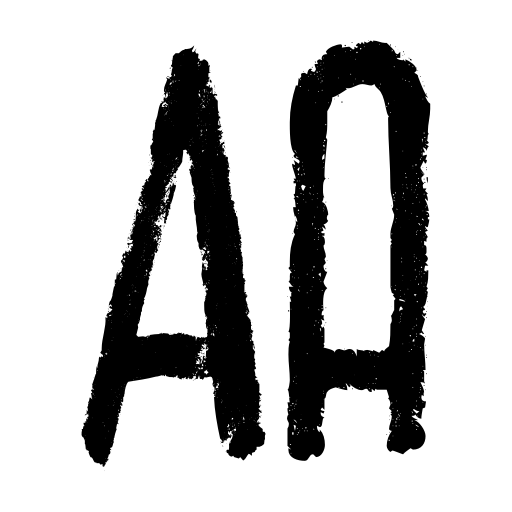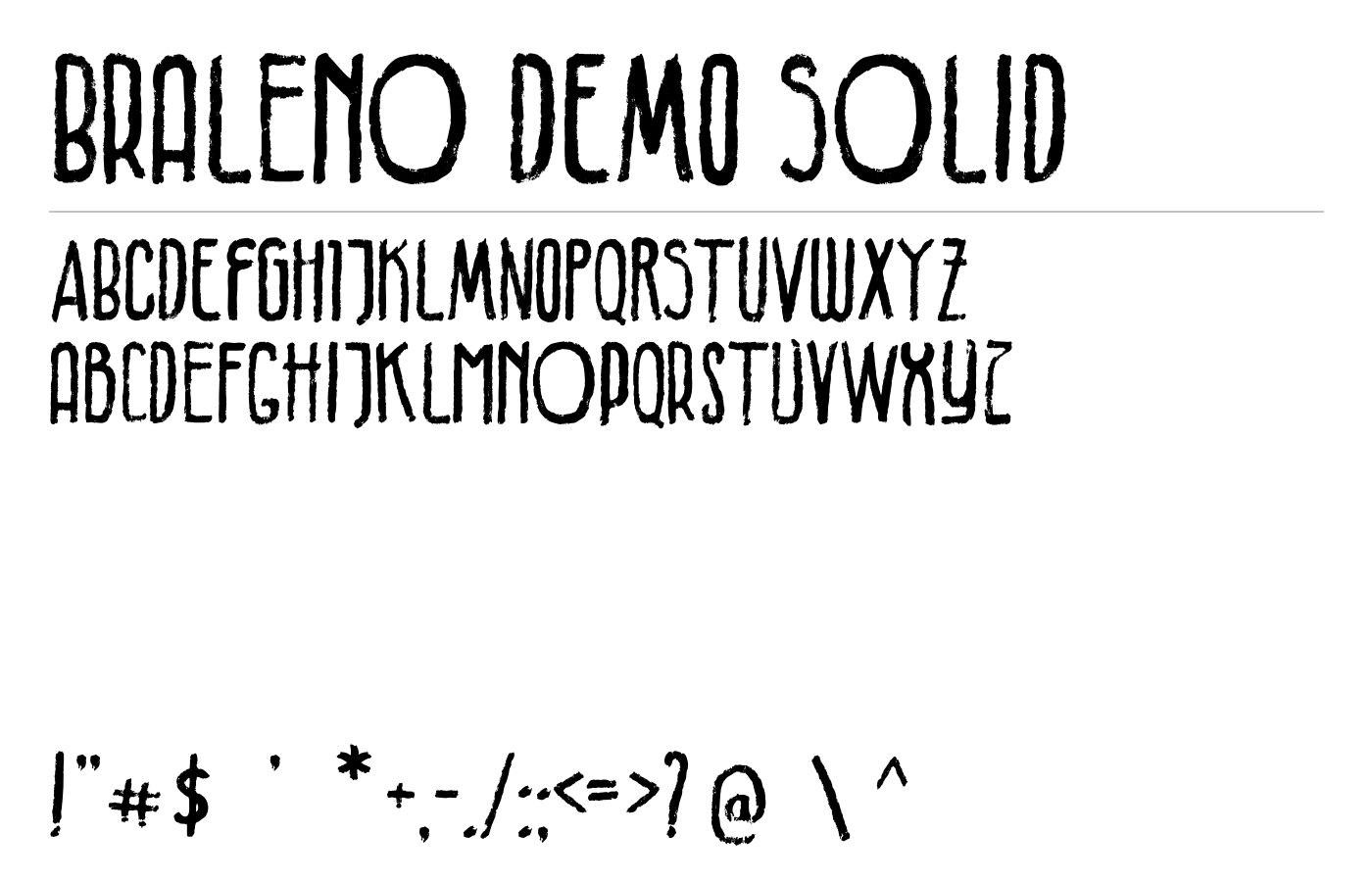
Braleno DEMO is a narrow, tall, and textured sans serif font with a hand-drawn, slightly rough appearance that gives it a unique, organic feel. Its irregular stroke edges and condensed letterforms make it ideal for creative and artistic projects, offering a casual yet distinctive style perfect for posters, logos, or headlines that want to stand out with personality and originality. This font works best where a raw, handcrafted vibe is desired to add character and visual interest.
Braleno DEMO Font